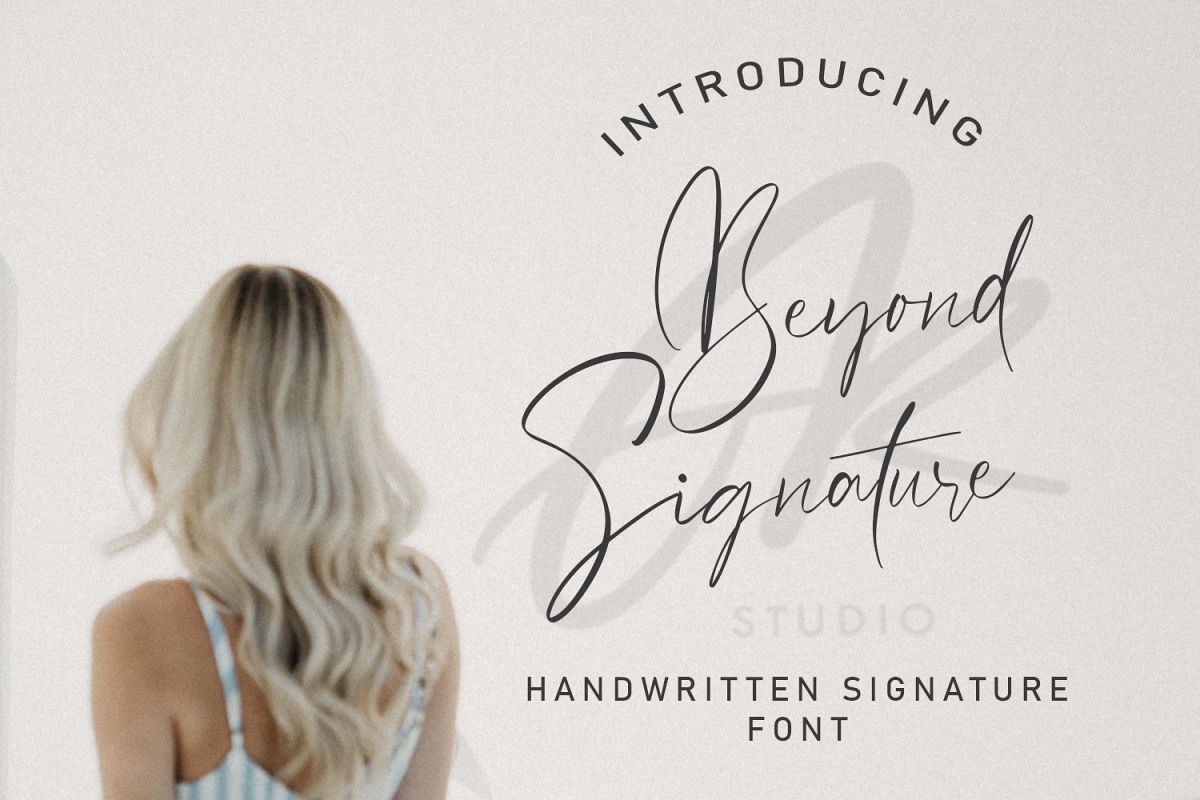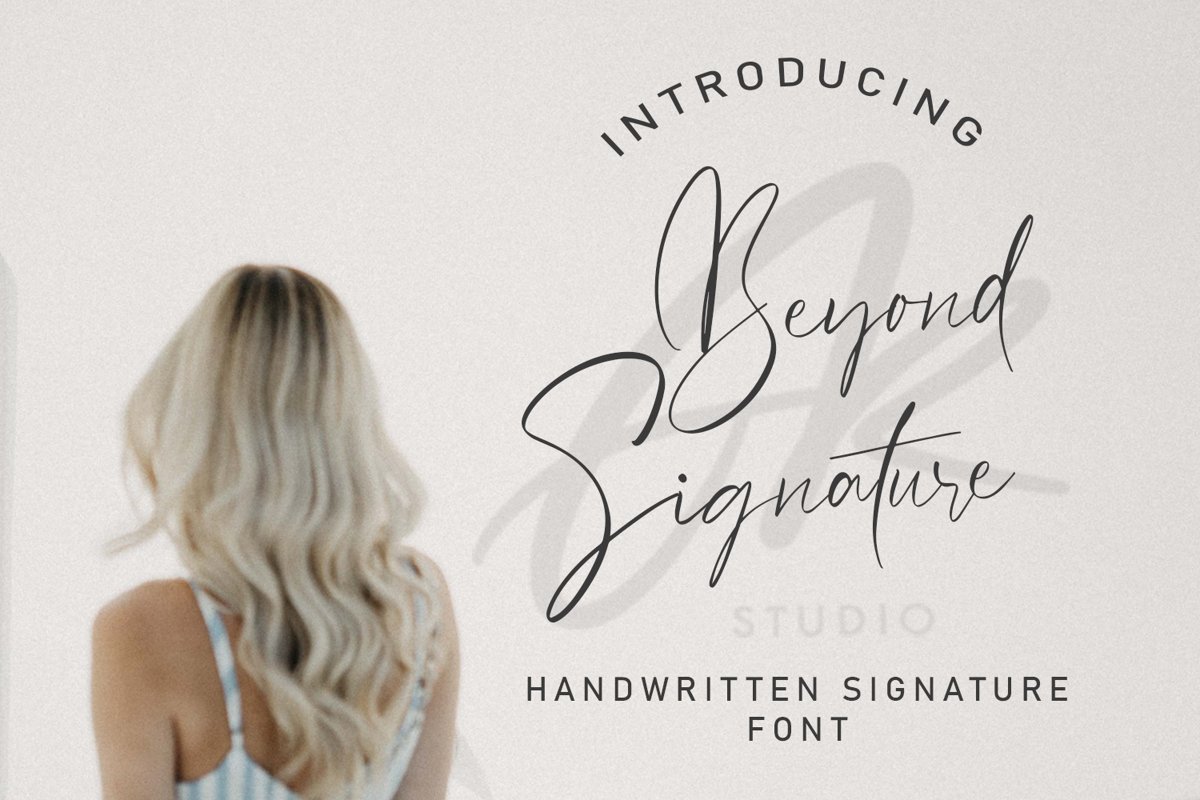
Beyond Signature Font
Beyond Signature
Beyond Signature Alt
Introducing Beyond Signature, a handwritten font which is very elegant and modern for you to use and your design interests be it for logos, branding names, posters, podcasts and so on. This is perfect for you